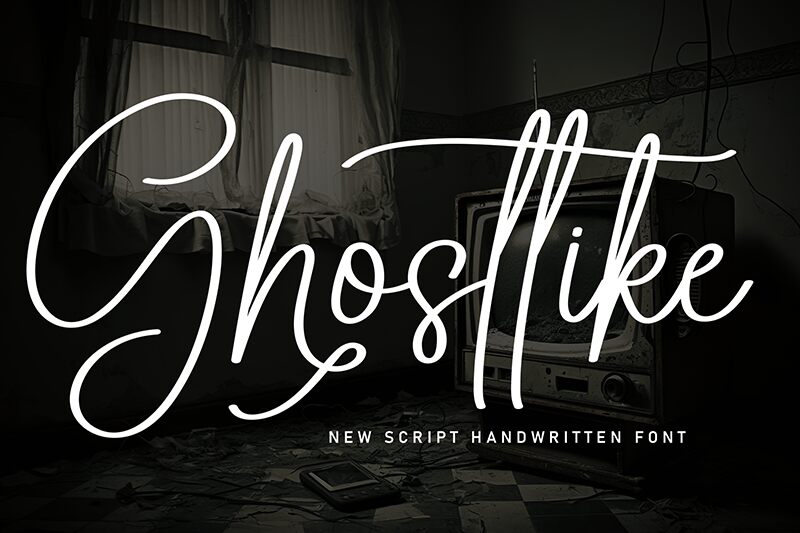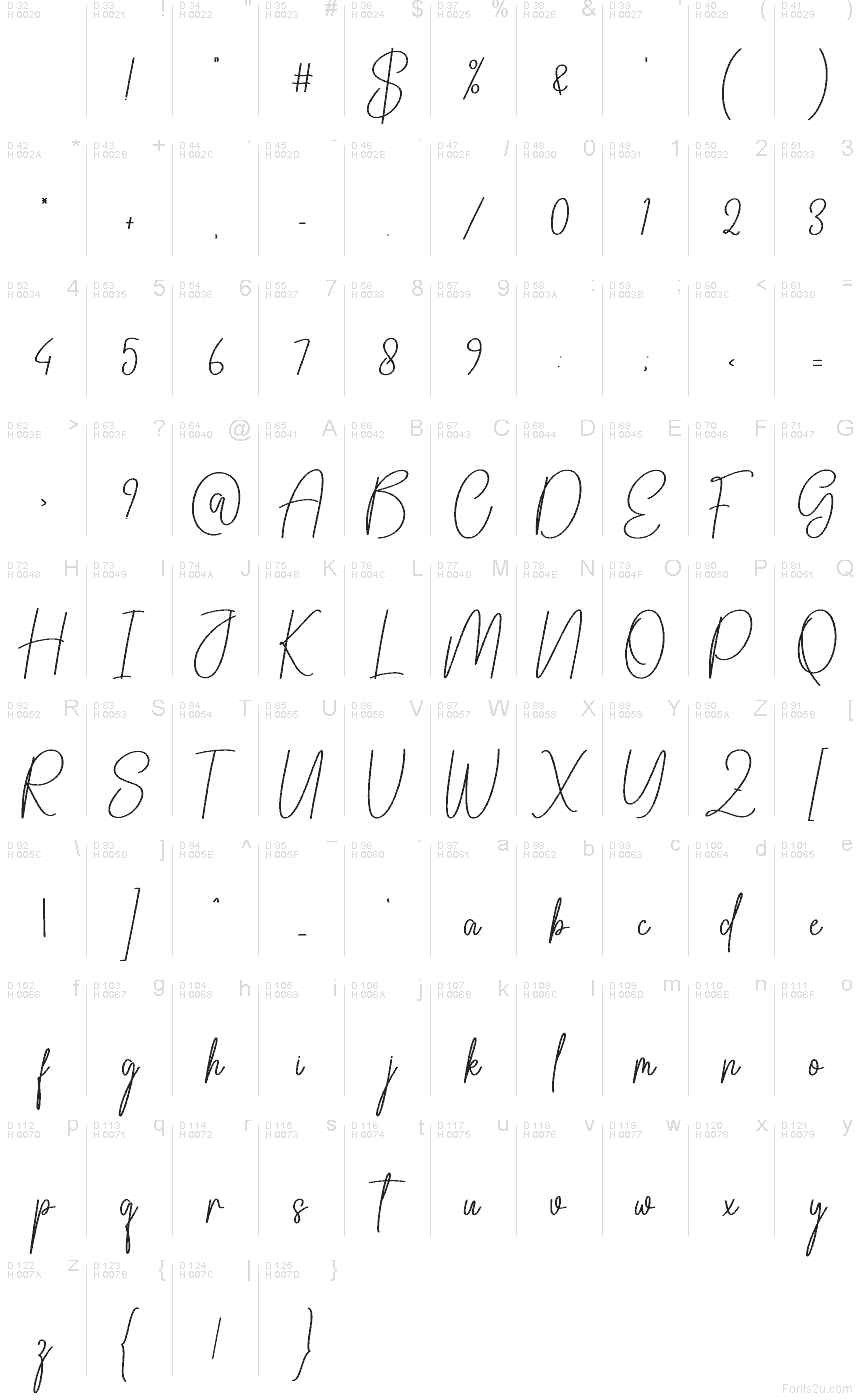
Ghostlike
Ghostlike font by Scratchones is a free handwritten script typeface that captures the feeling of ink gliding effortlessly across smooth paper. Its tall loops, sweeping entrance strokes, and slightly uneven rhythm give it a natural, candid charm—like a confident signature rather than stiff calligraphy. The thin, silky lines keep it airy and graceful, so even longer words feel light instead of crowded.
Using Ghostlike, this free font shines on wedding stationery, feminine branding, lifestyle blogs, product packaging, social media quotes, and logo wordmarks that need a touch of personal warmth. It reads best at medium to large sizes where the curls and swashes can breathe. For a simple pairing, match Ghostlike with a clean sans serif for body text to let the script do the storytelling in headlines and names.